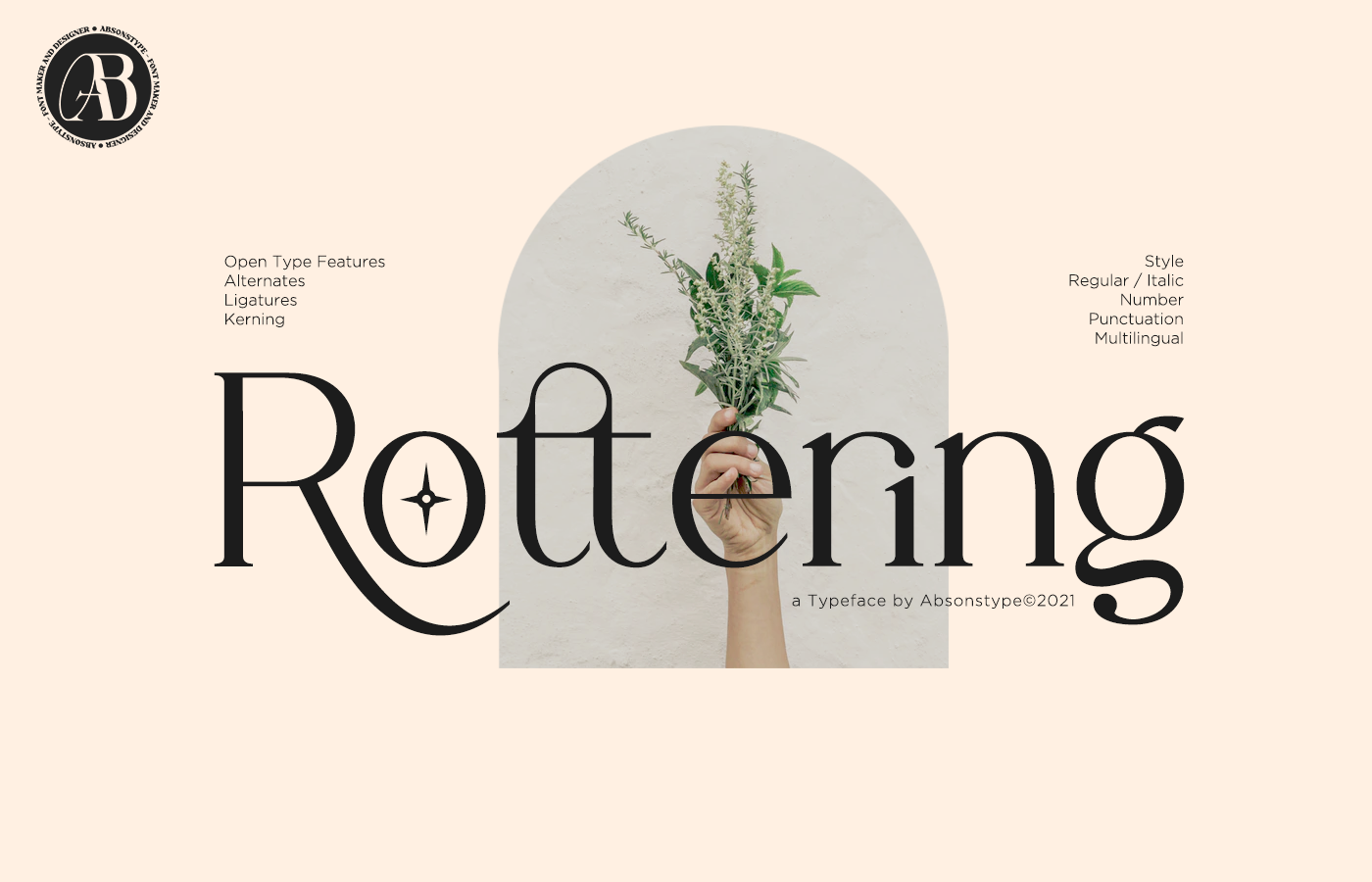
Rottering - Modern Serif Typeface
Rottering is the elegant modern serif style with uppercase and lowercase feel nice balanced. Provide alternates and ligatures font in variant style make the design letter looks nice. Honestly it works perfectly for headlines, logos, posters, packaging, T-shirts and much more.
- Regular and Italic version
- Character set A-Z uppercase and lowercase
- Accented Characters
- Multiple Languages Supported